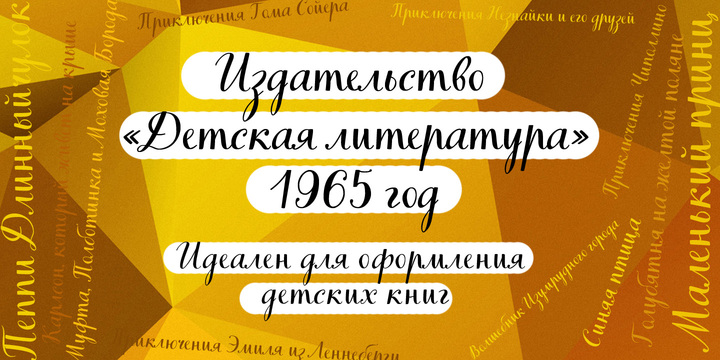
TT Books Script
Books Script — this is a good-hearted font, which was created based on the books of the Soviet period between 1960 and 1970. This font is perfect for illustrators and books which are designed for children.